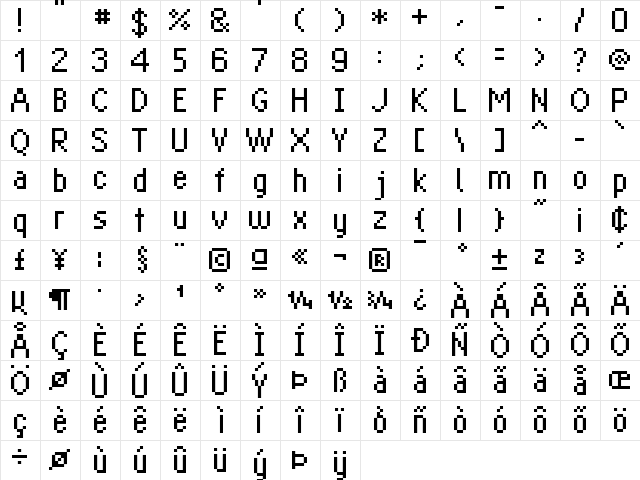
Munica Extended Regular
Design Context for Munica Extended Typeface
Munica Extended is a composed and adaptable typeface that performs quietly and consistently across a wide range of design contexts.
Pro Tip: Use Munica Extended in both headline and body roles to test its range before committing to a single application.